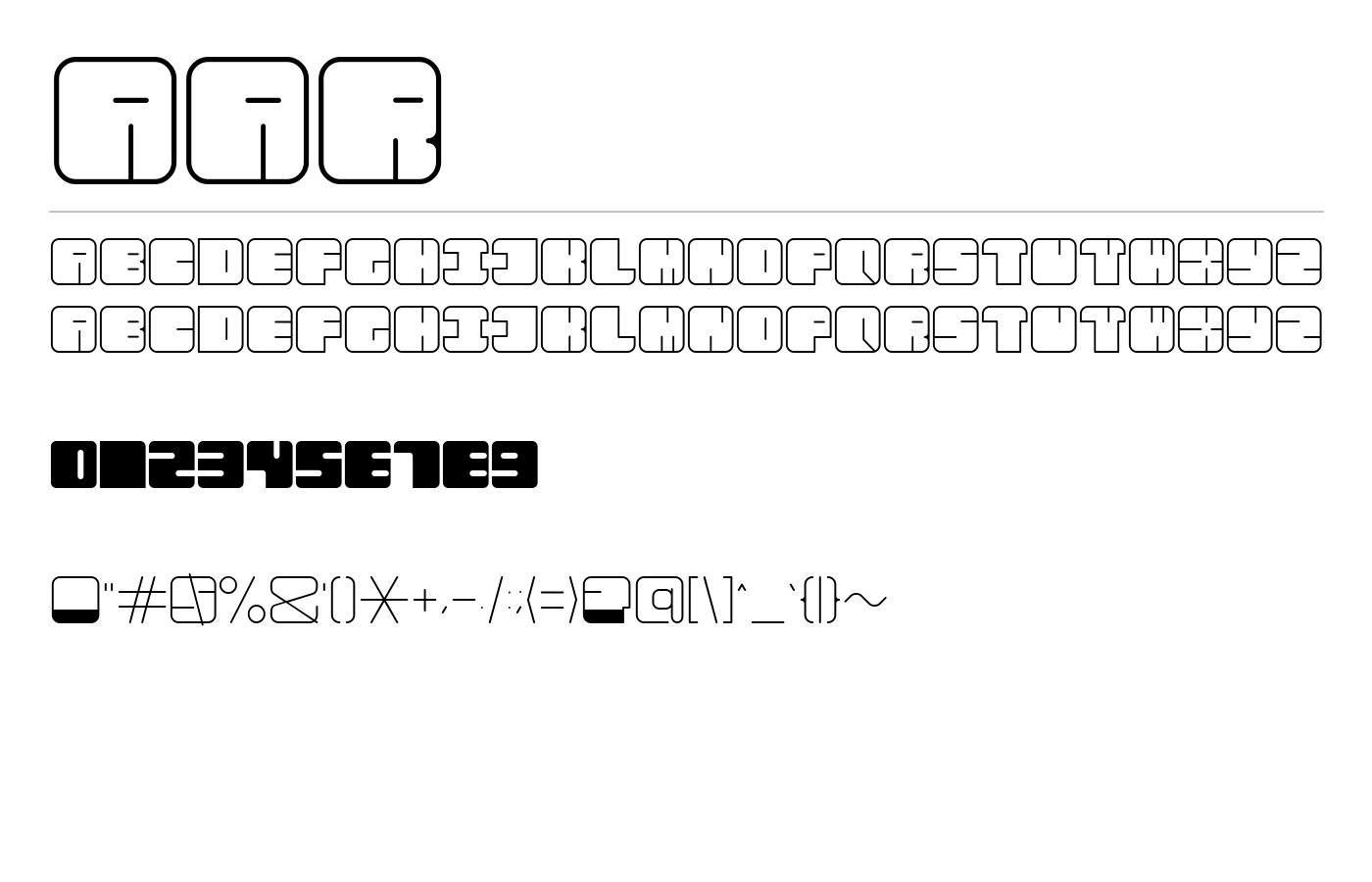
AAR Font is a bold, geometric sans serif with a playful, modern vibe characterized by its rounded, blocky letterforms and strong uniform strokes. Its high x-height and squared shapes give it a friendly, approachable feel, making it ideal for eye-catching headlines, logos, and branding that seeks a fun yet contemporary look. This font works well in creative projects, packaging, and digital media where a unique, attention-grabbing style is desired.
AAR Font
About AAR Font